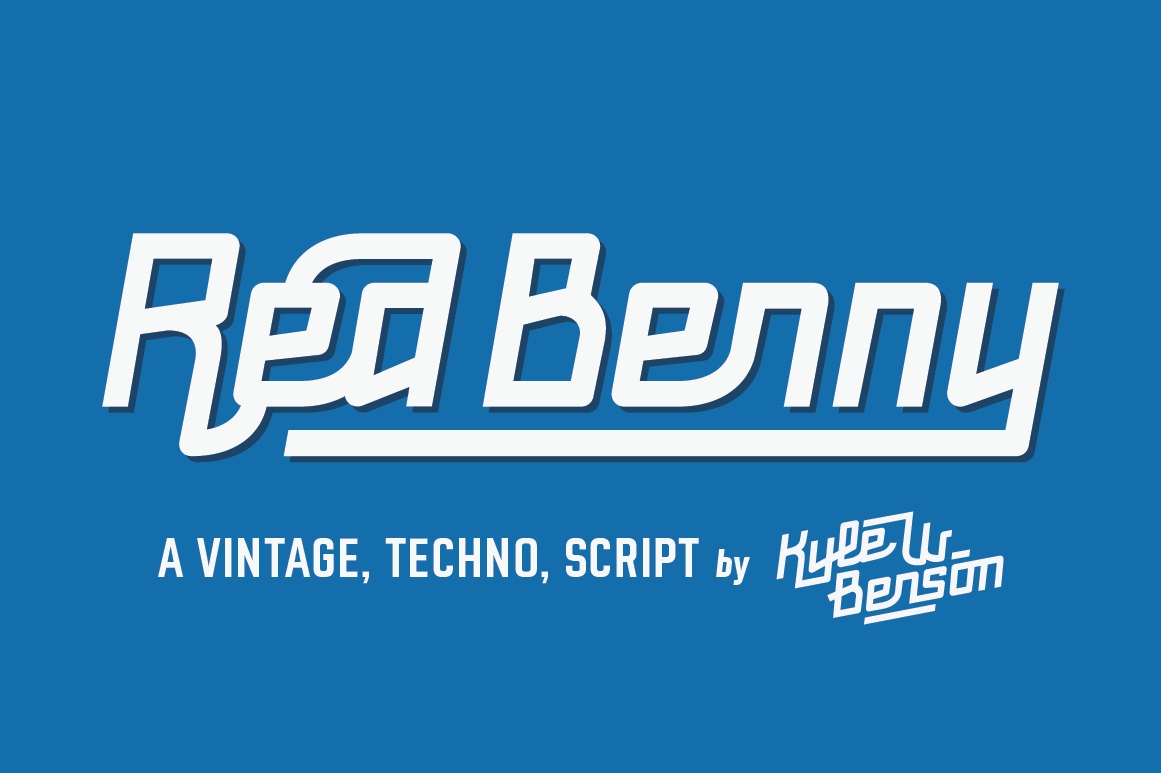
Red Benny Font
Red Benny Font is perfect for vintage barbershops, classic American diners, retro automotive brands, traditional sporting goods, nostalgic candy shops, heritage beer breweries, old-fashioned general stores, vintage Americana restaurants, classic sports memorabilia, and authentic traditional lifestyle brands.
Red Benny Font creates excitement because it embodies the friendly charm and nostalgic warmth of classic Americana with its approachable letterforms and vintage-inspired character design. The font's welcoming curves and retro aesthetic instantly convey authentic tradition and neighborhood friendliness, making any brand appear genuinely rooted in American heritage and authentically welcoming. Its carefully crafted vintage details and friendly character create an immediate sense of nostalgic warmth that captivates audiences seeking traditional experiences, heritage quality, and products that celebrate the transformative beauty of classic American culture and neighborhood charm.
The Red Benny Font family includes multiple weights and styles: Regular, Bold, Light, Medium, Italic, Condensed, Extended, Vintage, Friendly, and Classic versions. Each variant maintains the font's signature nostalgic character while offering different levels of traditional styling and American authenticity suitable for various heritage and community-focused applications.